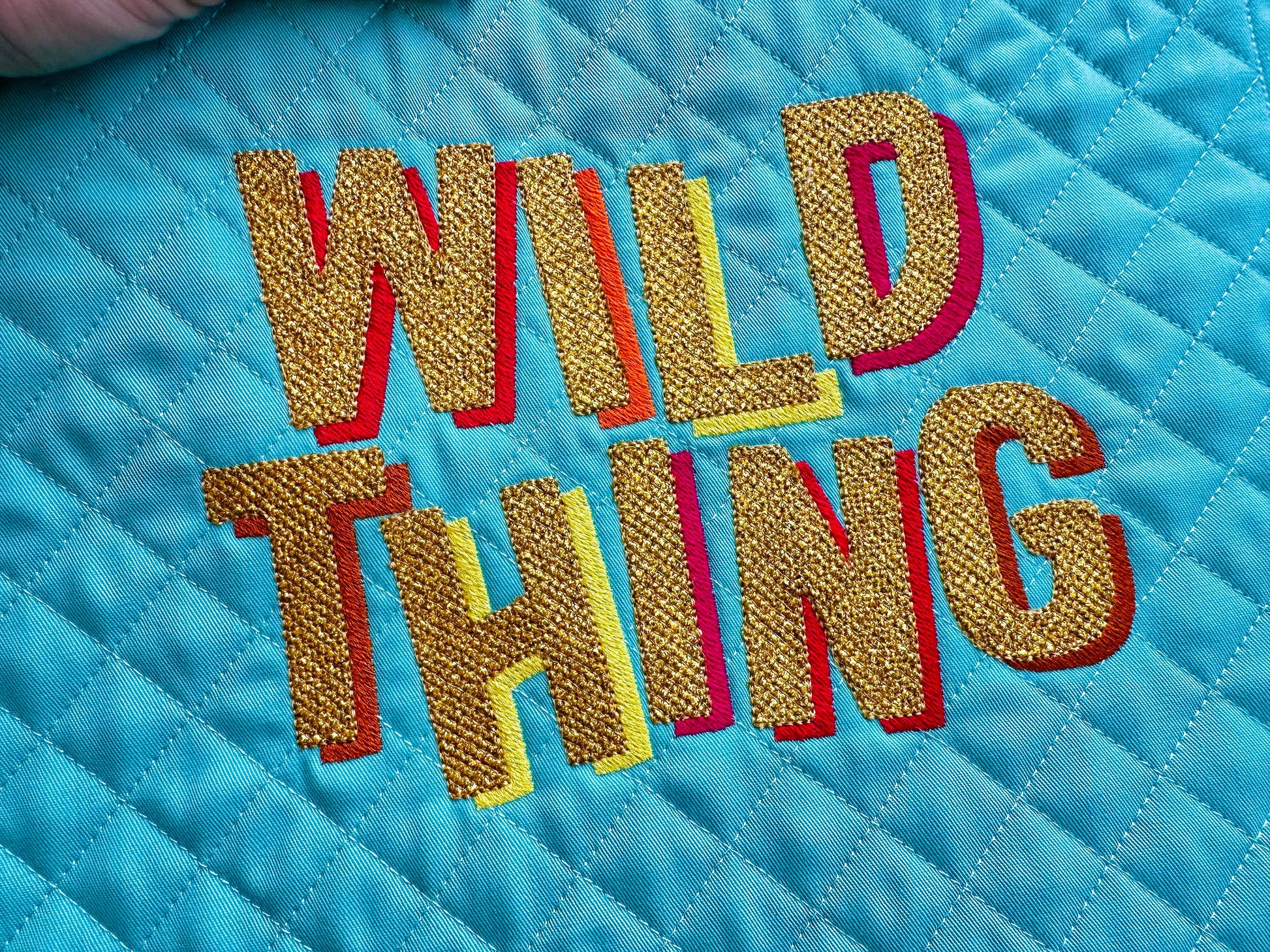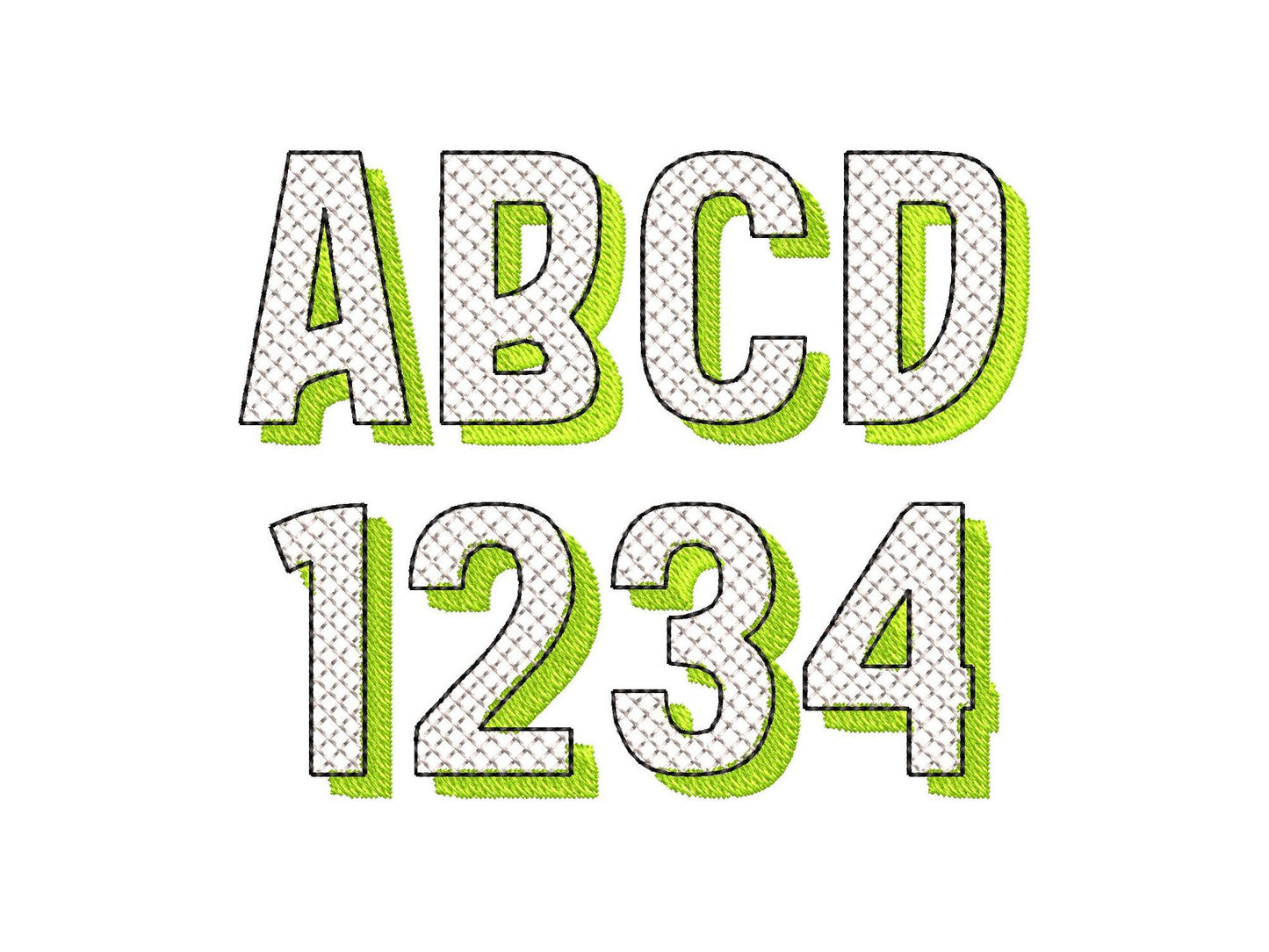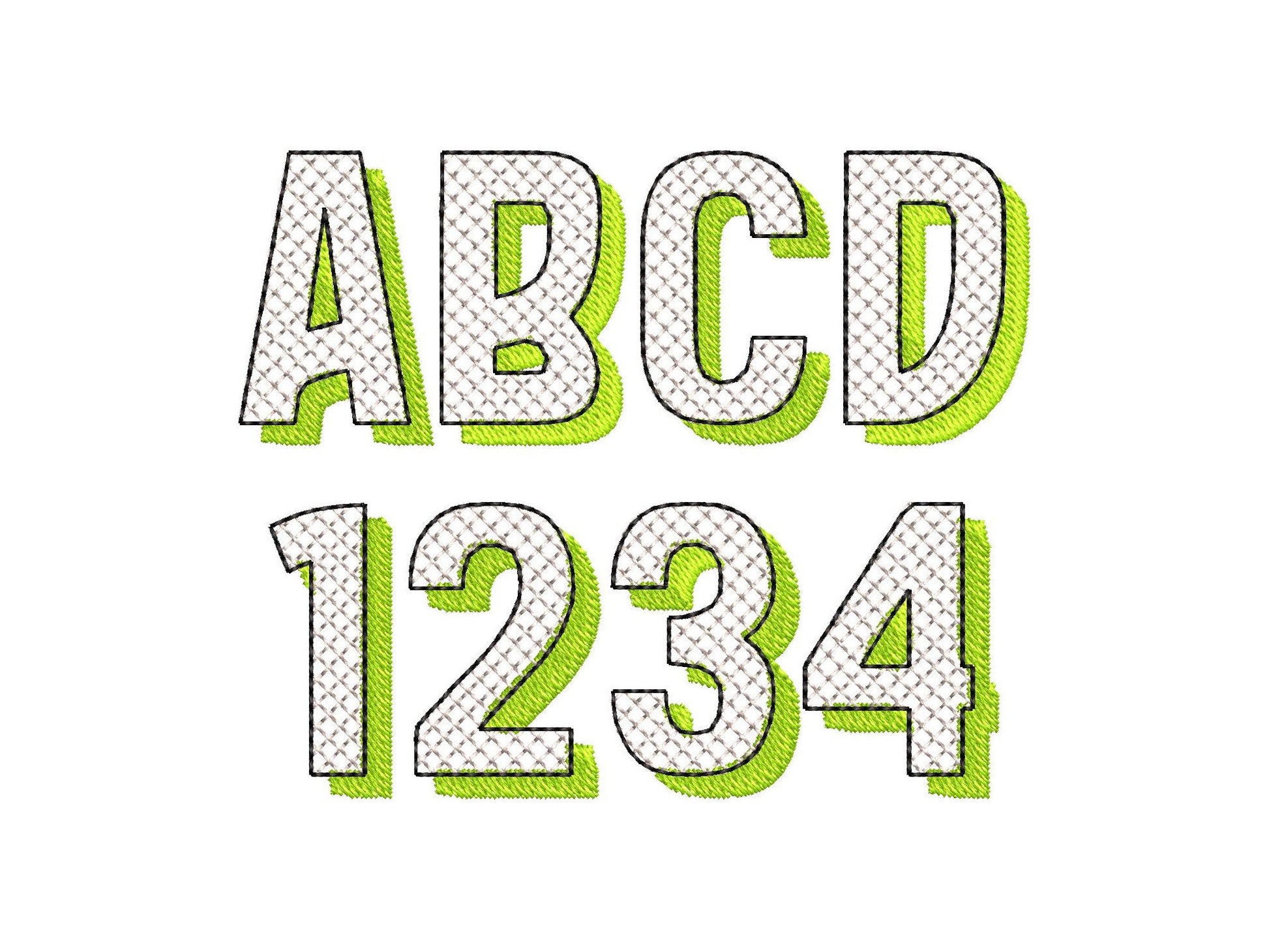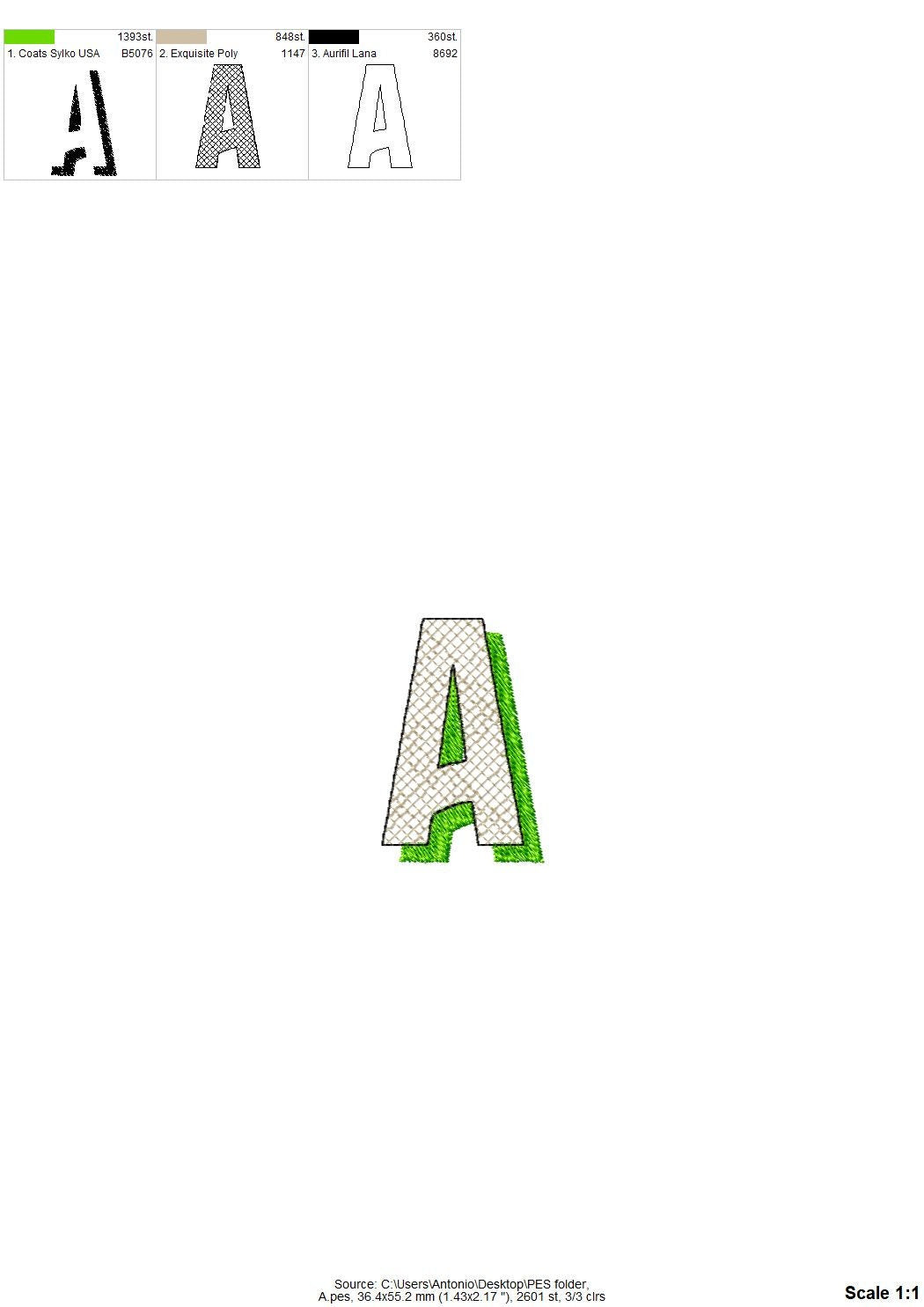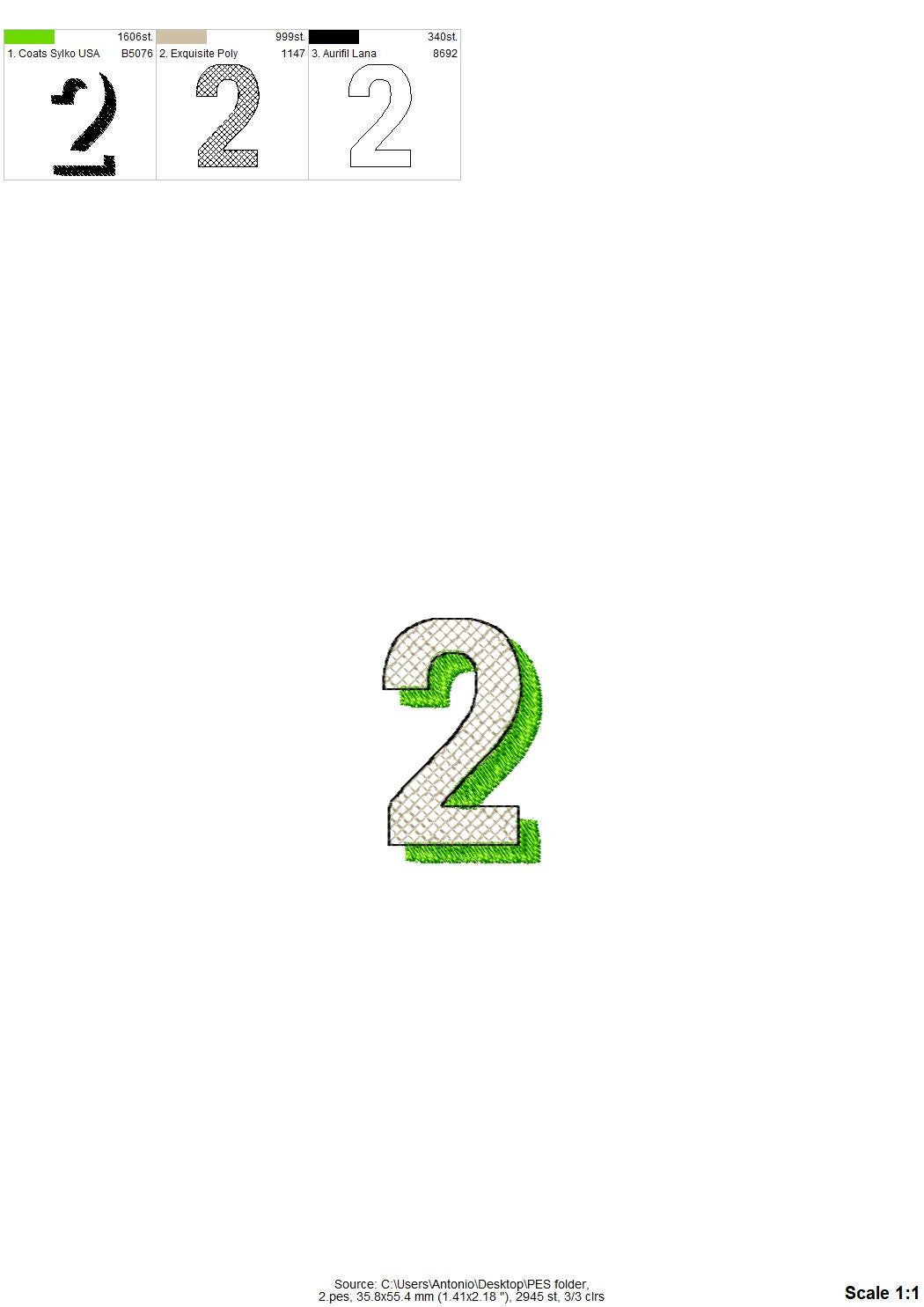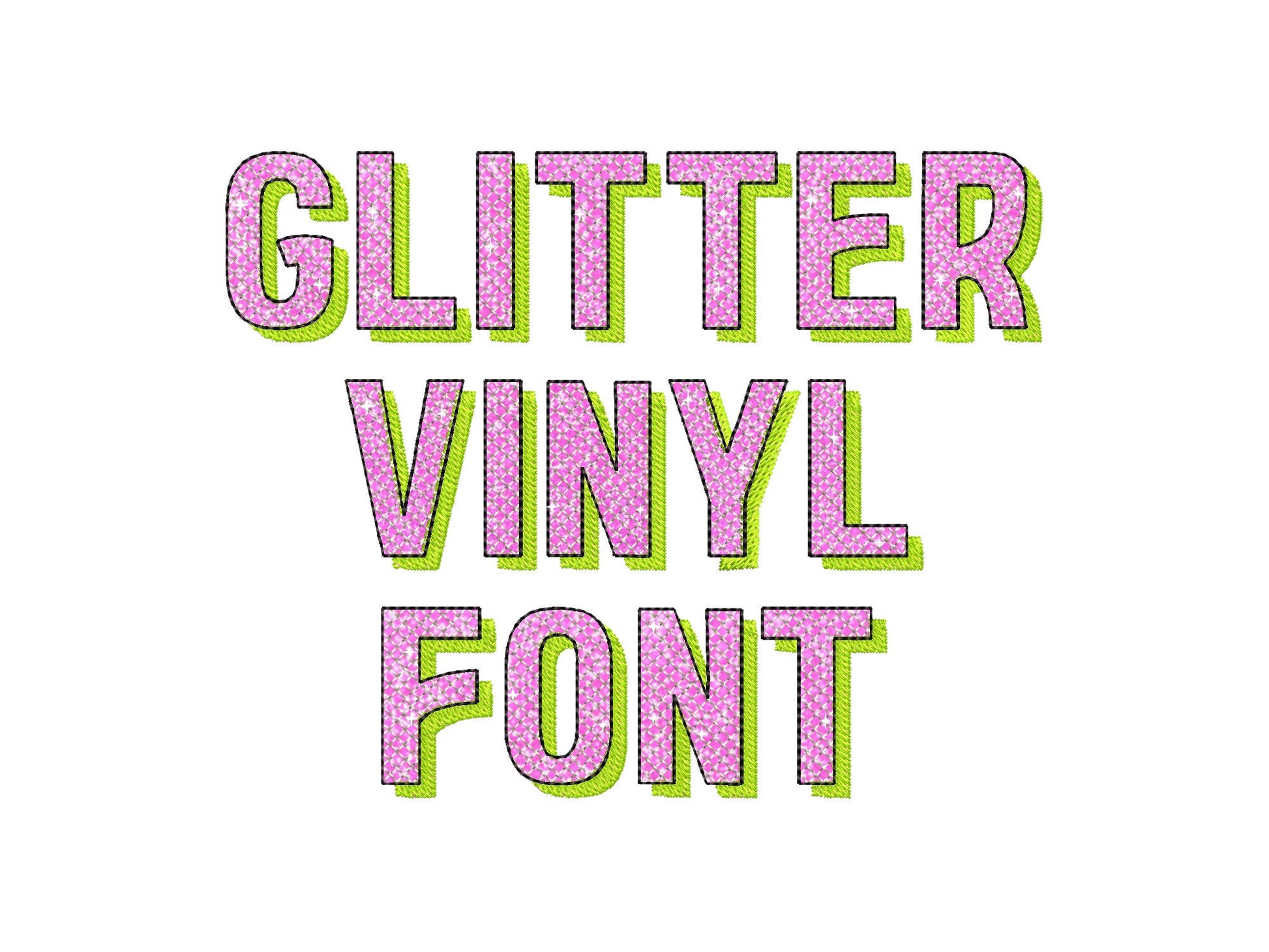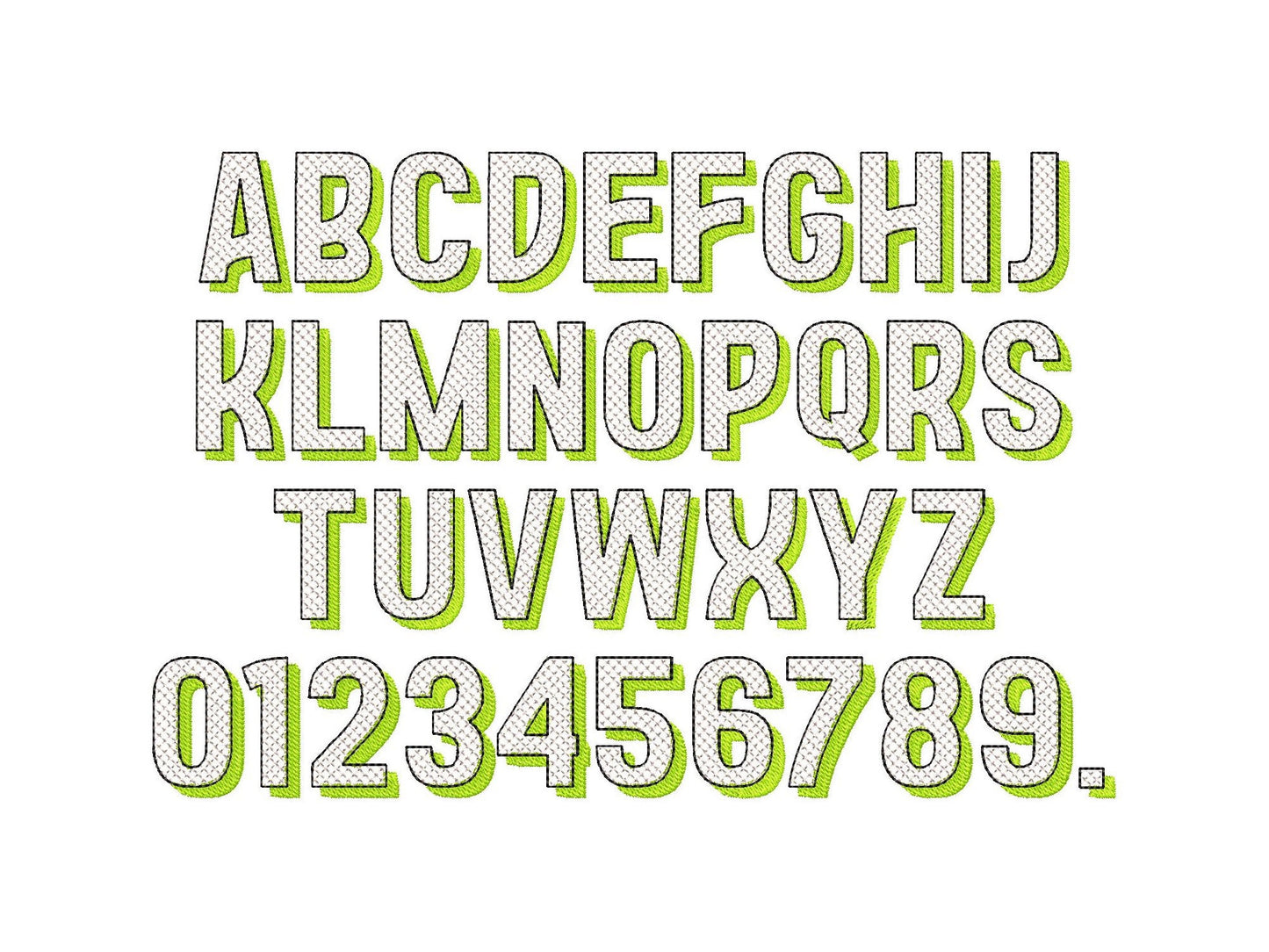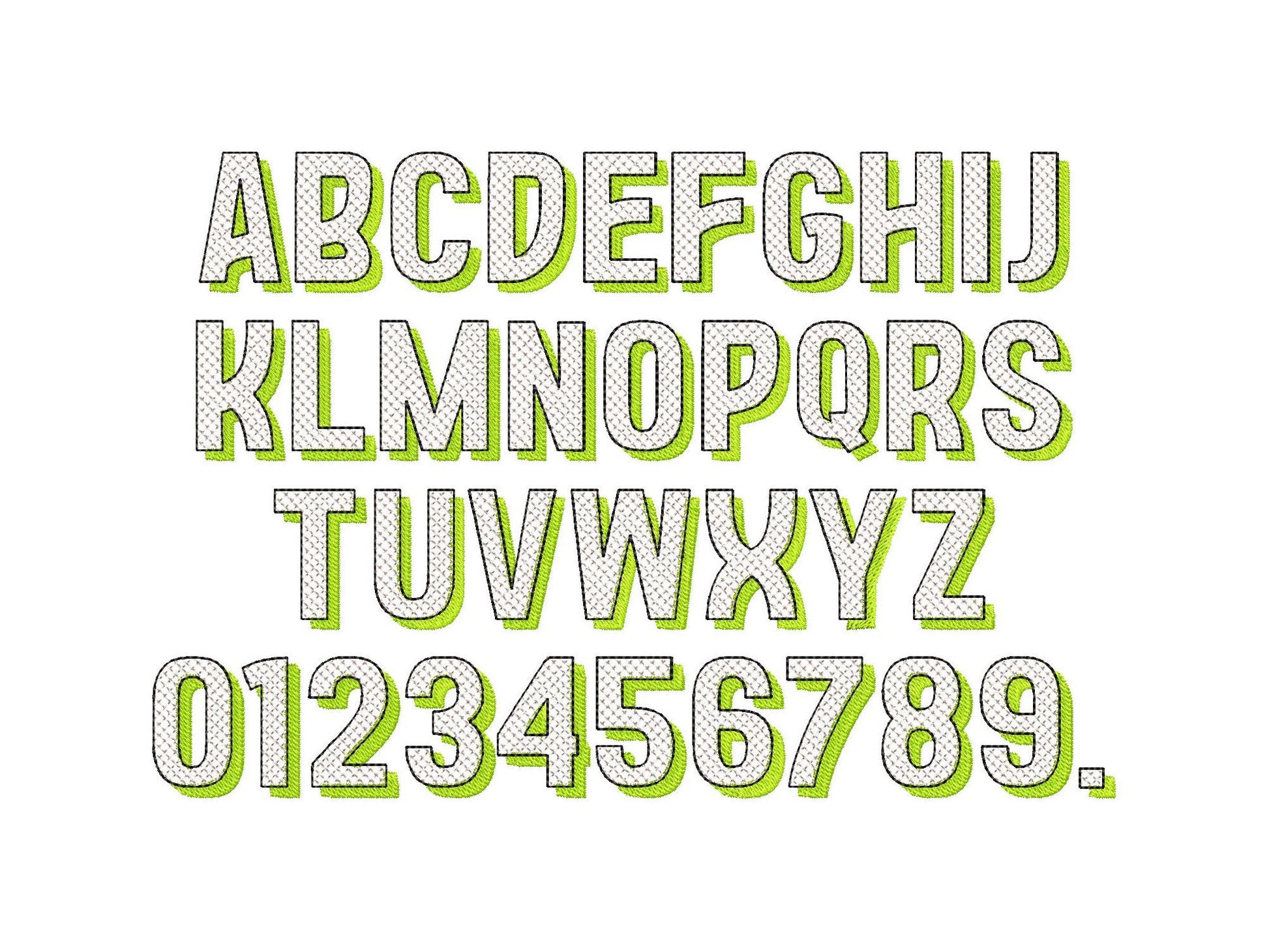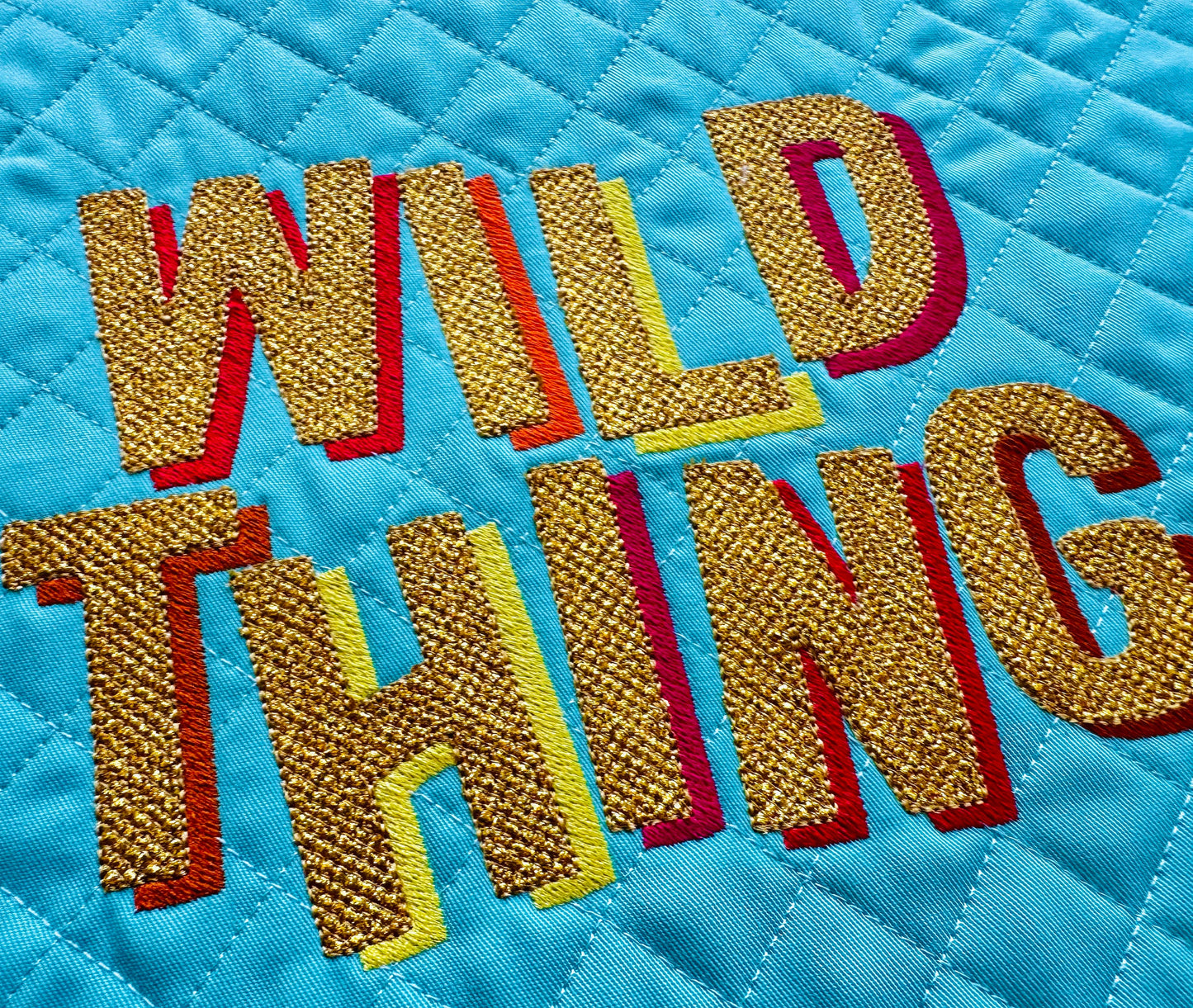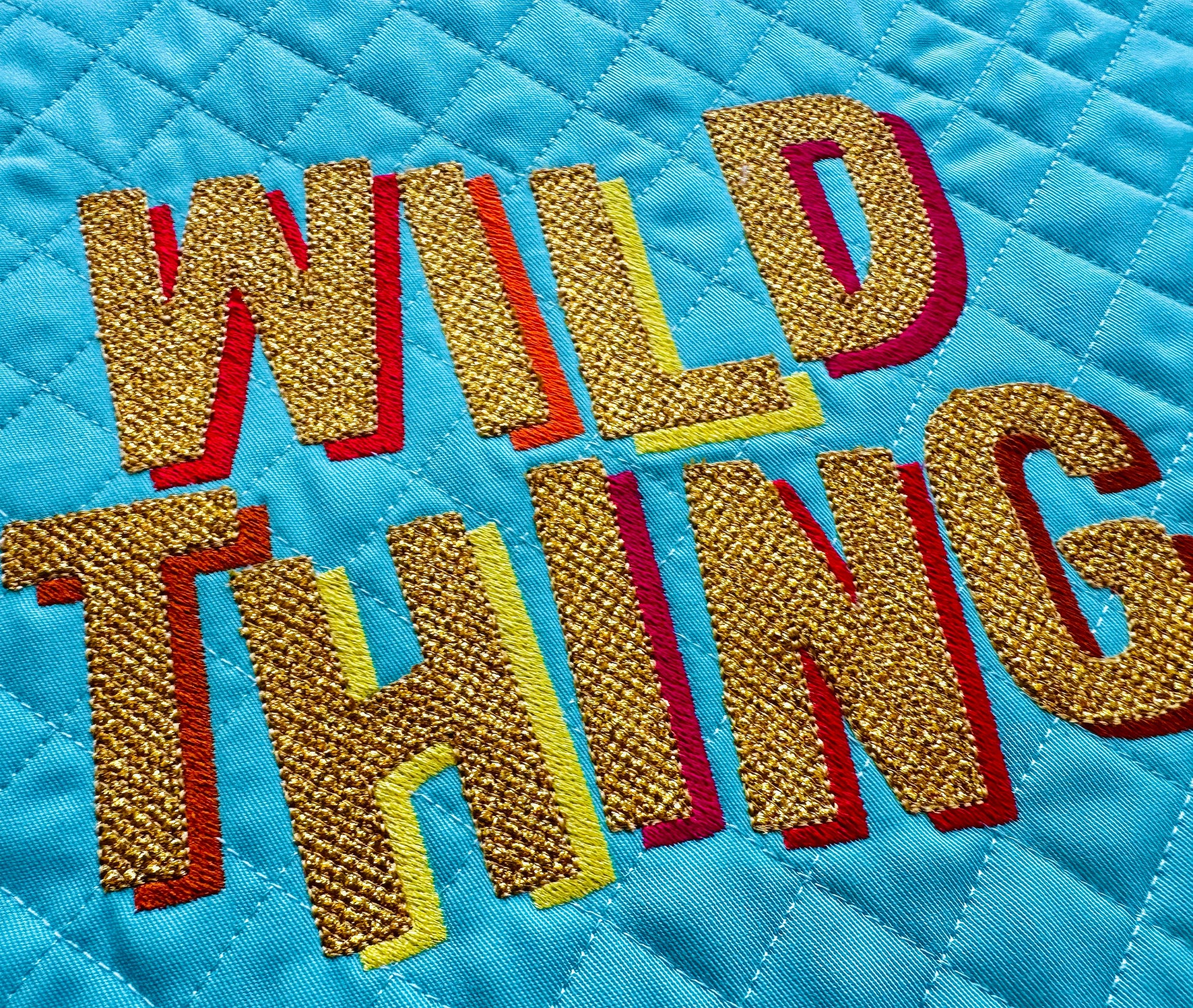
Block Glitter HTV Vinyl Shadow Font
Stitch over glitter heat transfer vinyl, then press it on with a heat press or iron. Uppercase A to Z, numbers 0 to 9 and a period in five sizes: 1.4, 1.8, 2, 2.4 and 3 inches.
- Block glitter vinyl shadow font
- Uppercase A-Z, numbers 0-9, period
- 5 sizes, 1.4 to 3 in